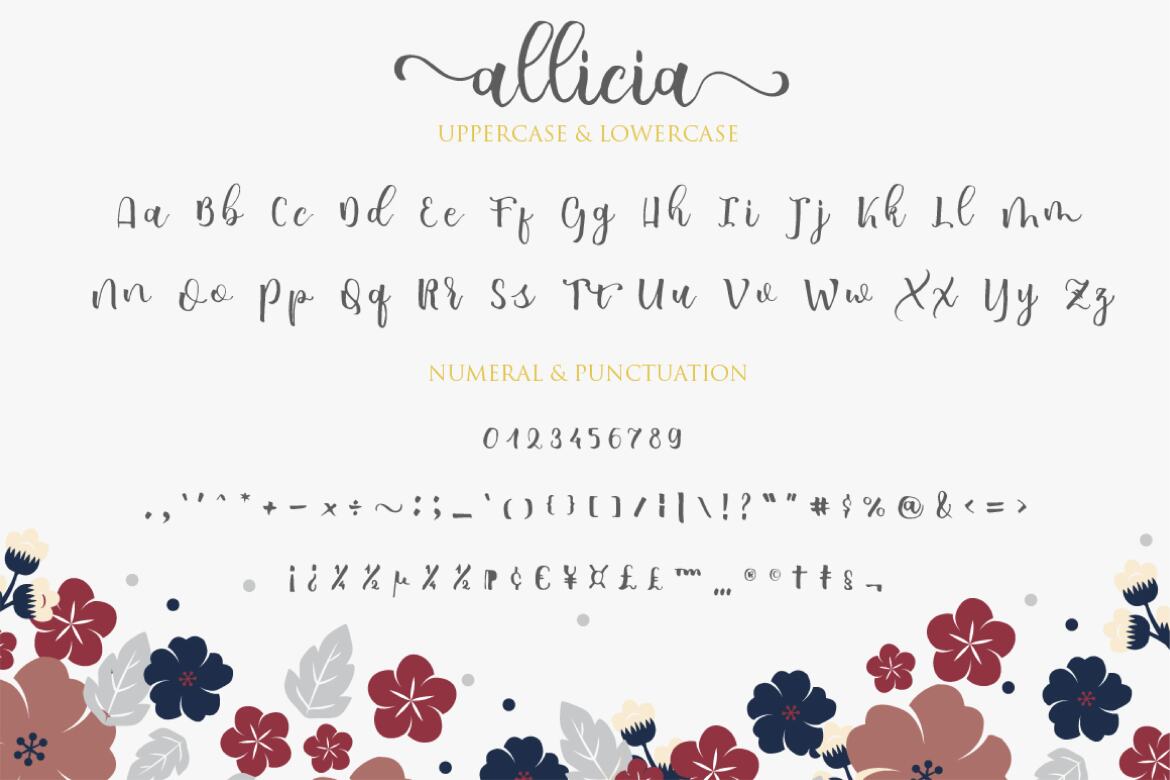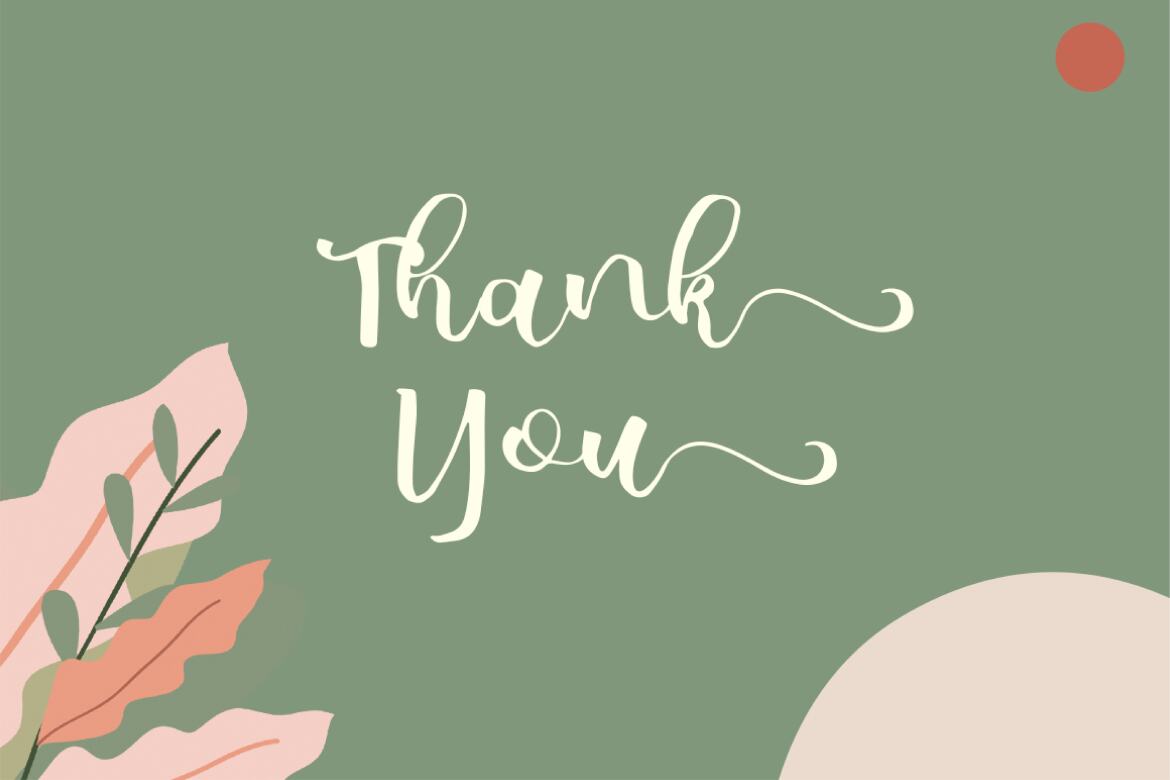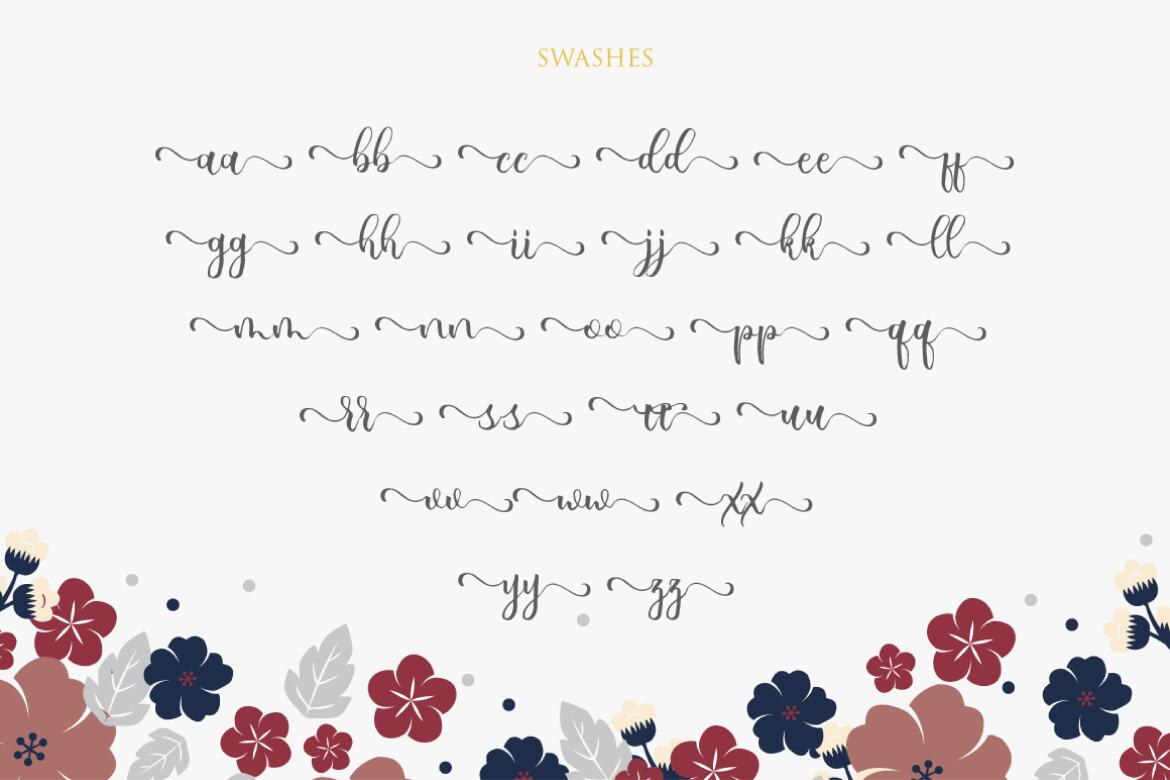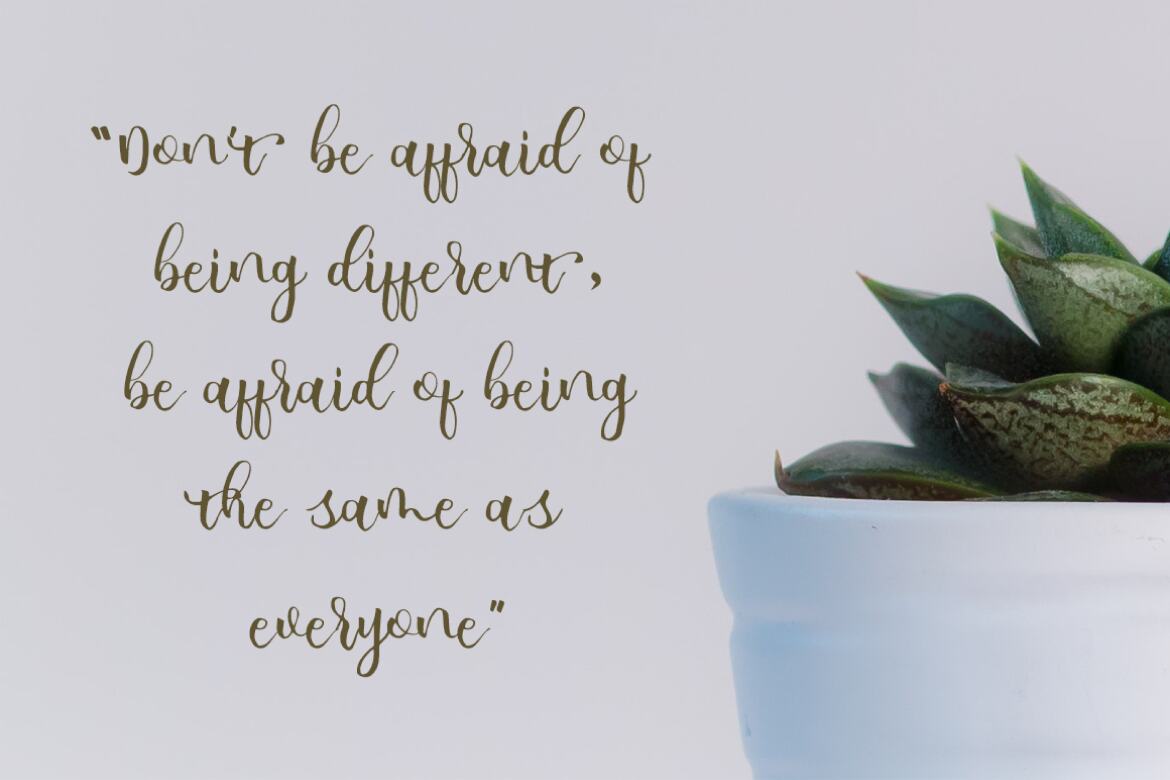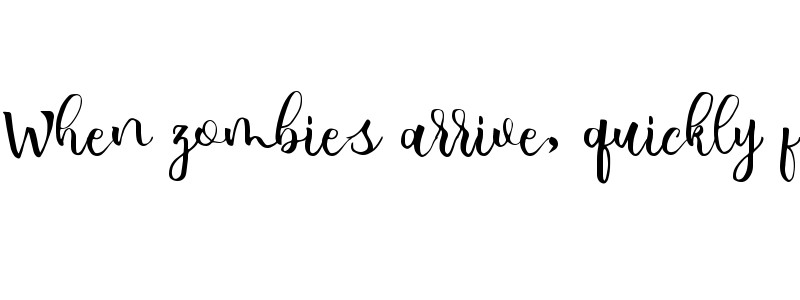
allicia script - Free Font
allicia
The "allicia" is a stylish feminine font. It includes amazing swashes which will add a feminine touch to your designs.
• 52 swashes & stylistic alternates
• international language
• numeral, punctuation, & ligatures